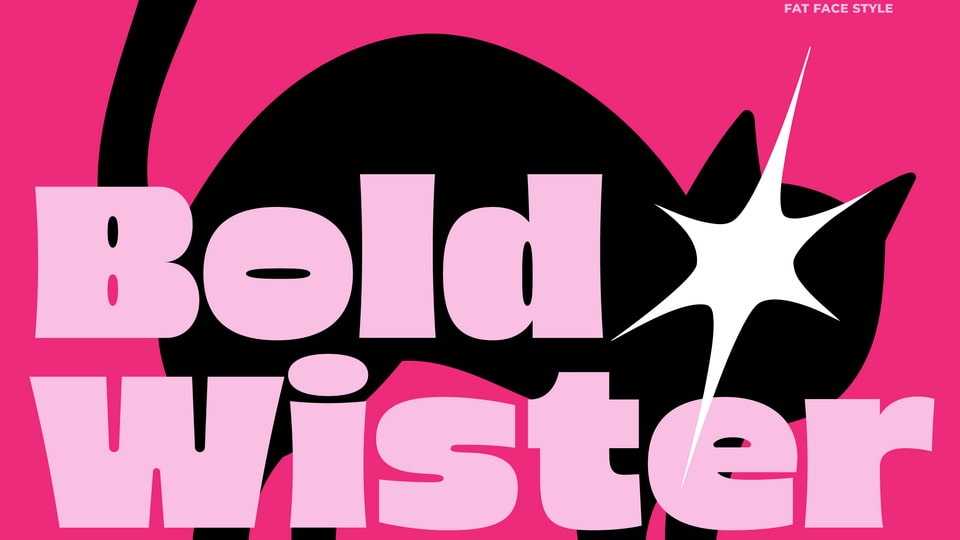
Download Wister font, a groovy bold display typeface that bursts with energy and a unique retro flair. Its big, blocky shapes paired with smooth, dynamic curves give it a funky, playful, and expressive personality.